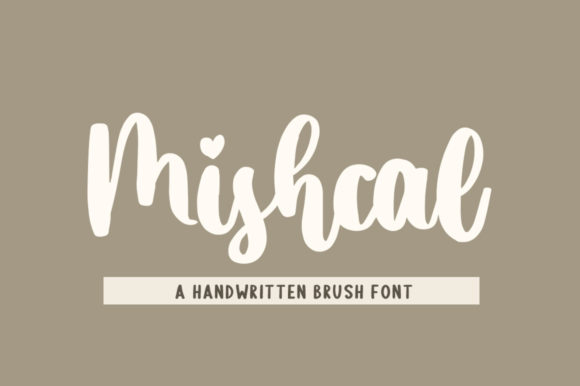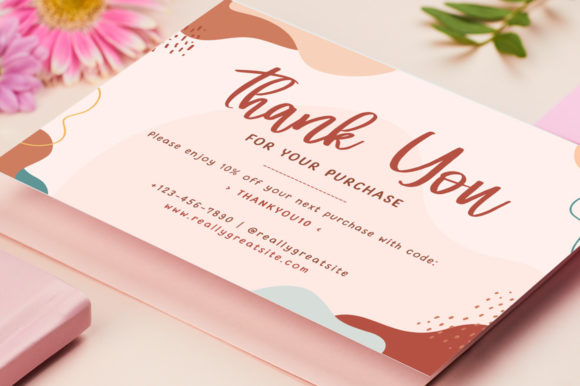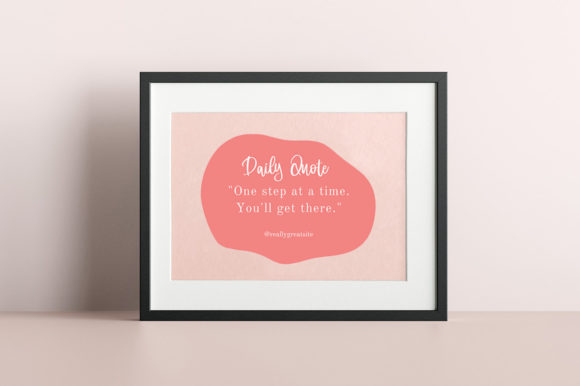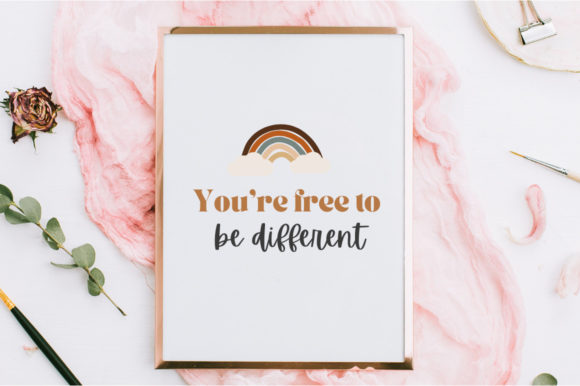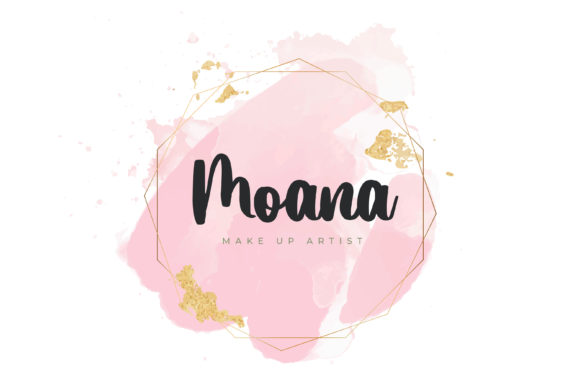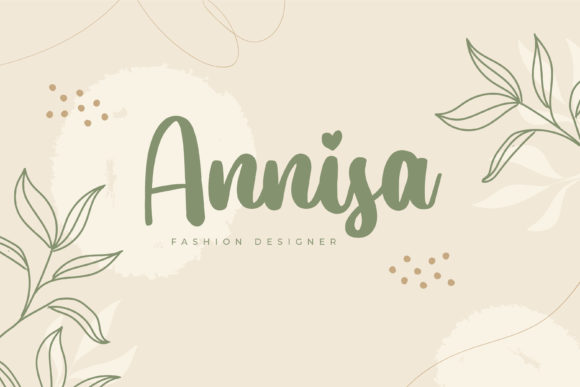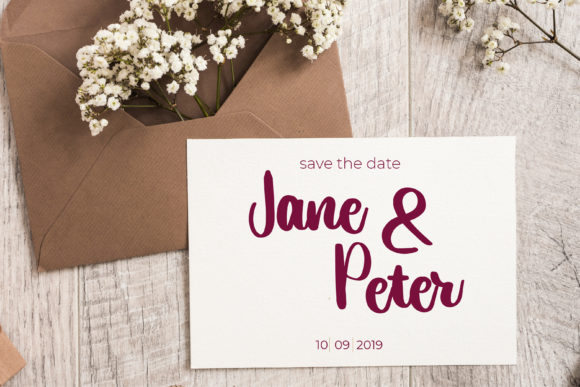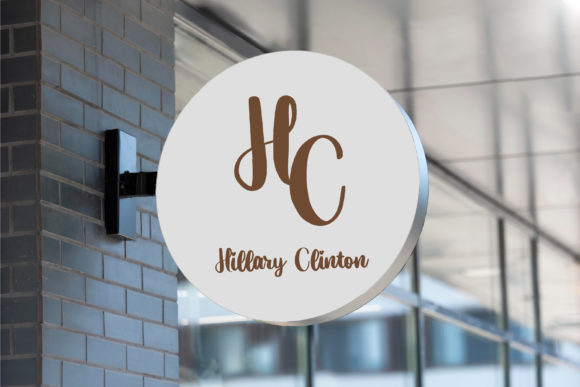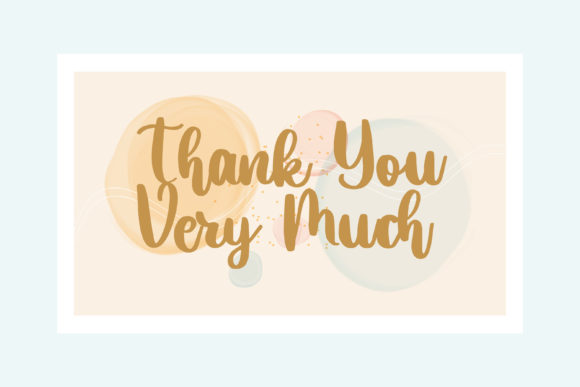
Mishcal Font
About Mishcal Font
Mishcal is a captivating and enchanting calligraphy typeface that exudes a romantic and sweet charm. With its gracefully dancing characters along the baseline, Mishcal adds a touch of whimsy and elegance to your design projects.
The font’s casual yet sophisticated style makes it a versatile choice for a variety of creative endeavors. Whether you’re working on wedding invitations, love letters, greeting cards, quotes, or any other project that requires a warm and inviting aesthetic, Mishcal effortlessly conveys a sense of heartfelt emotion.
One of Mishcal’s standout features is its PUA encoding, which allows you to easily access a wide range of glyphs and swashes. This feature opens up a world of creative possibilities, enabling you to personalize and customize your designs with unique and intricate details.
Mishcal’s fluid and organic letterforms capture the essence of handwritten calligraphy, adding a genuine and personal touch to your creations. Its characters gracefully flow, creating a harmonious and visually pleasing appearance that draws the viewer’s attention.
Whether you’re aiming for a romantic, elegant, or whimsical look, Mishcal is designed to bring your vision to life. Its combination of charm, accessibility, and versatility makes it a valuable addition to your font collection, allowing you to create designs that evoke genuine emotions and leave a lasting impact.